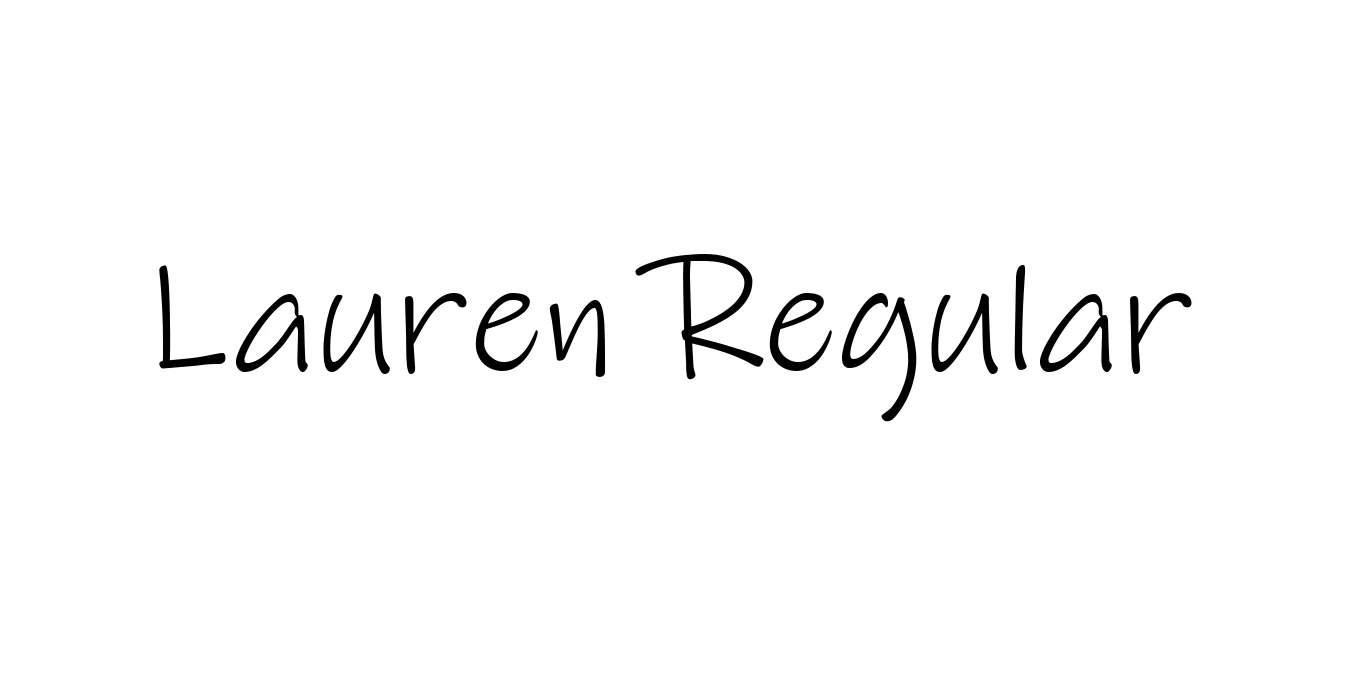
Lauren Regular
Lauren Regular is a beautifully crafted script typeface designed by Kritthiya Akkarasanyapong and distributed by 7NTypes. This font embodies a modern calligraphic style, characterized by its fluid, rhythmic strokes and sophisticated aesthetic. It was developed to bridge the gap between traditional handwriting and digital precision, offering a high-end feel that is both personal and professional. The letterforms are designed with a natural flow, making it an excellent choice for projects that require a touch of elegance and intimacy.
Technically, the font features a wide array of ligatures and decorative swashes that allow designers to create custom-looking typography without manual adjustments. Since its introduction, Lauren Regular has gained significant popularity in the wedding and branding industries due to its legibility and stylish flair. It performs exceptionally well in print media, maintaining its delicate details and smooth curves across various textures, from high-quality stationery to digital marketing assets.
Lauren Regular Best Uses
Perfect for creating romantic invitations, save-the-date cards, and place settings.
Ideal for fashion, beauty, and lifestyle brands seeking a signature look.
Great for high-impact quotes and stylized Instagram stories.
Excellent for engravings, custom monograms, and greeting cards.